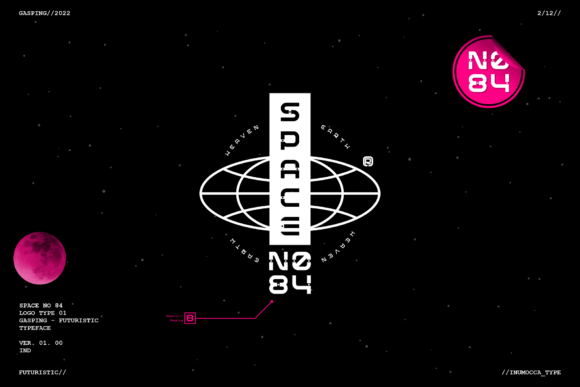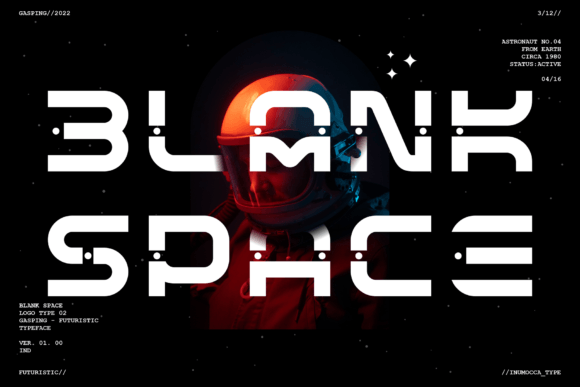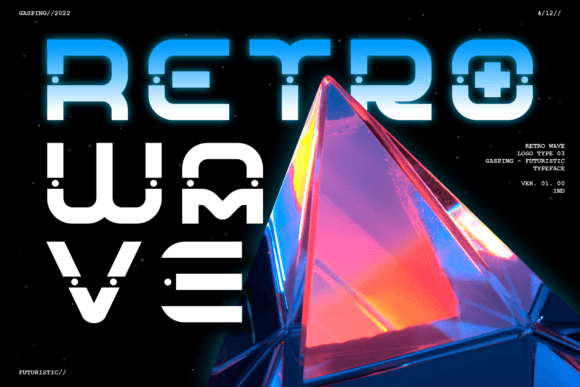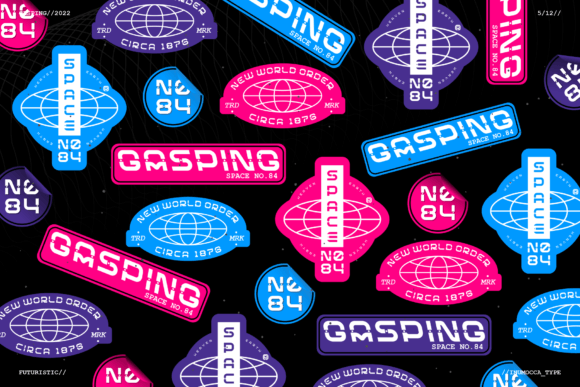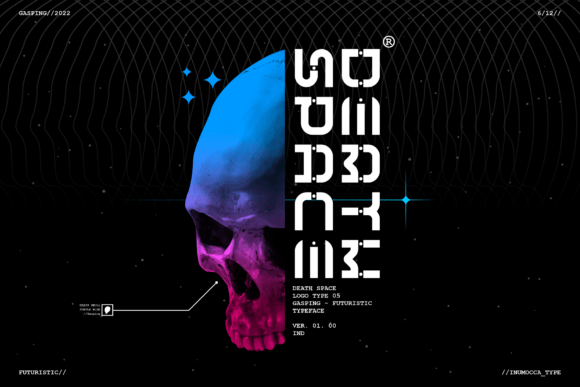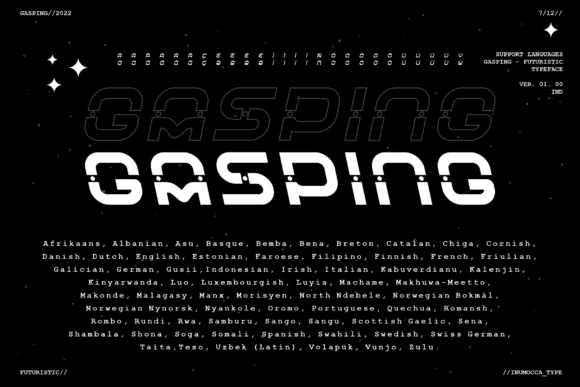
Gasping Font: A Futuristic Typeface Inspired by Modern Technology and Sci-Fi
In the world of typography, fonts play a crucial role in conveying the tone and aesthetic of a design project. For designers and crafters looking for a unique and futuristic typeface, Gasping Font is an excellent choice. This minimalist font features a distinctive glyph construction inspired by modern technology, sci-fi movie posters, science, and space themes.
What Makes Gasping Font Stand Out?
Gasping Font is a one-of-a-kind typeface that boasts a futuristic and avant-garde look. Its unique glyph construction is reminiscent of sci-fi movie posters, making it perfect for projects that require a touch of otherworldliness. The font’s minimalist design ensures that it remains clean and legible, even at smaller sizes.
Key Features of Gasping Font
- Unique Glyph Construction: Gasping Font features a distinctive glyph construction that sets it apart from other fonts. Its futuristic design is inspired by modern technology and sci-fi movie posters.
- Minimalist Design: The font’s minimalist design ensures that it remains clean and legible, even at smaller sizes.
- Sci-Fi and Space Themes: Gasping Font is perfect for projects that require a touch of sci-fi and space themes, such as movie posters, magazine covers, and website interfaces.
- Multipurpose: This font is versatile and can be used for a wide range of projects, including lettering, website interface, magazine, branding, poster, wedding invitations, quotes, logos, and more.
Gasping Font is an excellent choice for designers and crafters looking for a unique and futuristic typeface. Its versatility and legibility make it perfect for a wide range of projects, from digital designs to print materials.
Use Cases for Gasping Font
- Lettering: Use Gasping Font to create stunning lettering pieces that showcase your creativity.
- Website Interface: Add a touch of futurism to your website interface with Gasping Font.
- Magazine Covers: Create eye-catching magazine covers with Gasping Font’s unique glyph construction.
- Branding: Use Gasping Font to create a unique and memorable brand identity.
- Posters: Create stunning posters with Gasping Font’s futuristic design.
- Wedding Invitations: Add a touch of elegance and futurism to your wedding invitations with Gasping Font.
- Quotes: Use Gasping Font to create inspiring and eye-catching quotes.
- Logos: Create a unique and memorable logo with Gasping Font’s distinctive glyph construction.
Why Choose Gasping Font?
Gasping Font is an excellent choice for designers and crafters looking for a unique and futuristic typeface. Its versatility, legibility, and distinctive glyph construction make it perfect for a wide range of projects. With Gasping Font, you can add a touch of futurism and avant-gardism to your designs, setting them apart from the rest.
| Font Name | Gasping Font |
| Author | inumocca_type |
In conclusion, Gasping Font is a futuristic typeface that is perfect for designers and crafters looking for a unique and avant-garde look. Its distinctive glyph construction, minimalist design, and versatility make it an excellent choice for a wide range of projects. Whether you’re working on a digital design or a print project, Gasping Font is sure to make your work stand out.